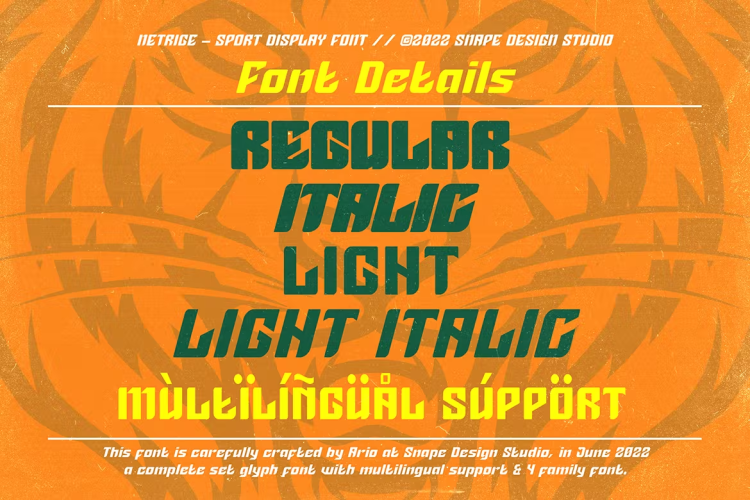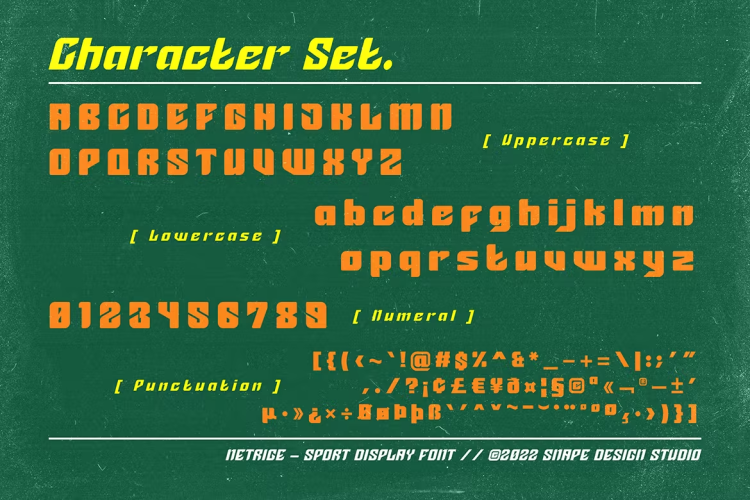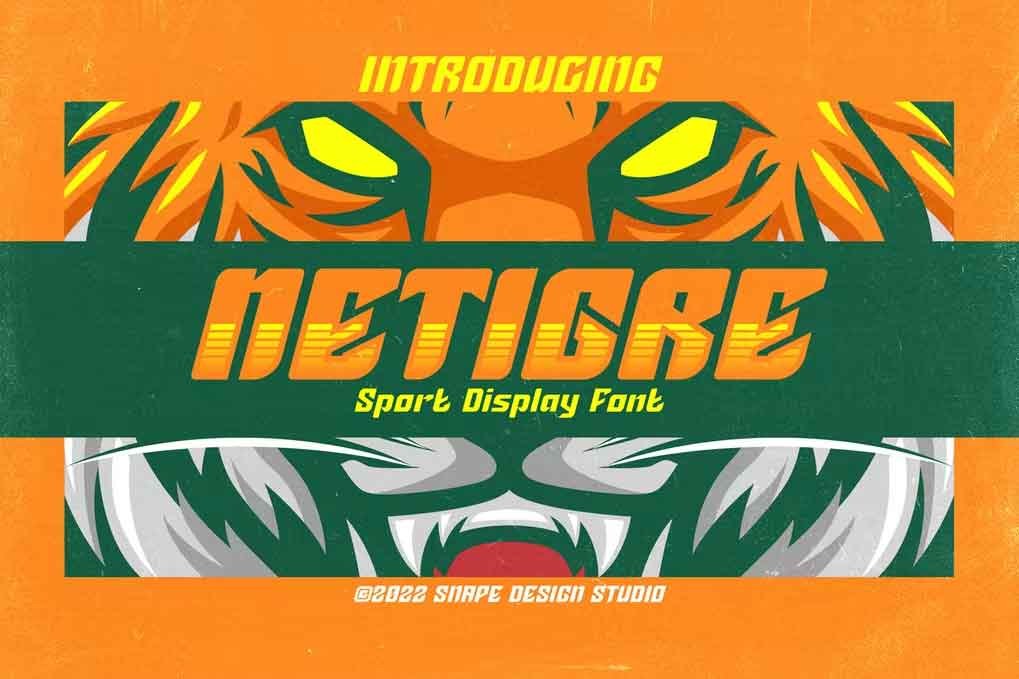
Netigre Sport Font
Netigre is strong font was designed to draw attention and highlight any project that requires a bold feel, look powerful, created to add a vibrant touch to your sport-in…
Netigre is strong font was designed to draw attention and highlight any project that requires a bold feel, look powerful, created to add a vibrant touch to your sport-inspired designs. Suitable for sport design, team, jersey, league, movie, documenter, film, logo, poster, game, book cover, headlines, title and many more projects. Add this font to your creative ideas and notice how it will make them stand out!
Where Netigre Sport Font works best
Event & seasonal design
Netigre Sport Font suits themed posters, holiday campaigns, festival identities and party invitations.
Game & entertainment titles
Decorative letterforms are a natural fit for game logos, movie-style titles and merch.
Packaging accents
Use Netigre Sport Font sparingly for product names or flavour labels that need personality.
What is Netigre Sport Font good for?
Netigre Sport Font is a Decorative Fonts typeface tagged Bold, Branding, Creative, Decorative. It works well for headlines, logos, posters, social media graphics and branding projects that need a distinctive decorative fonts look.